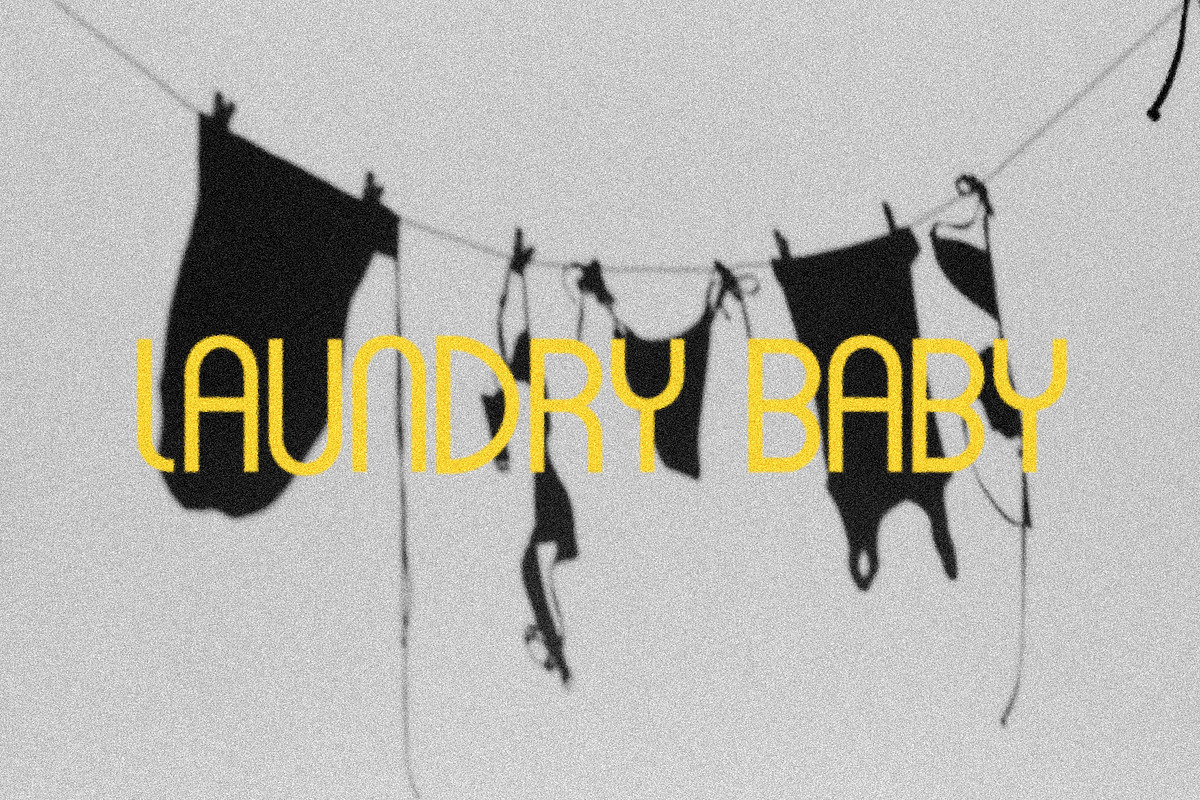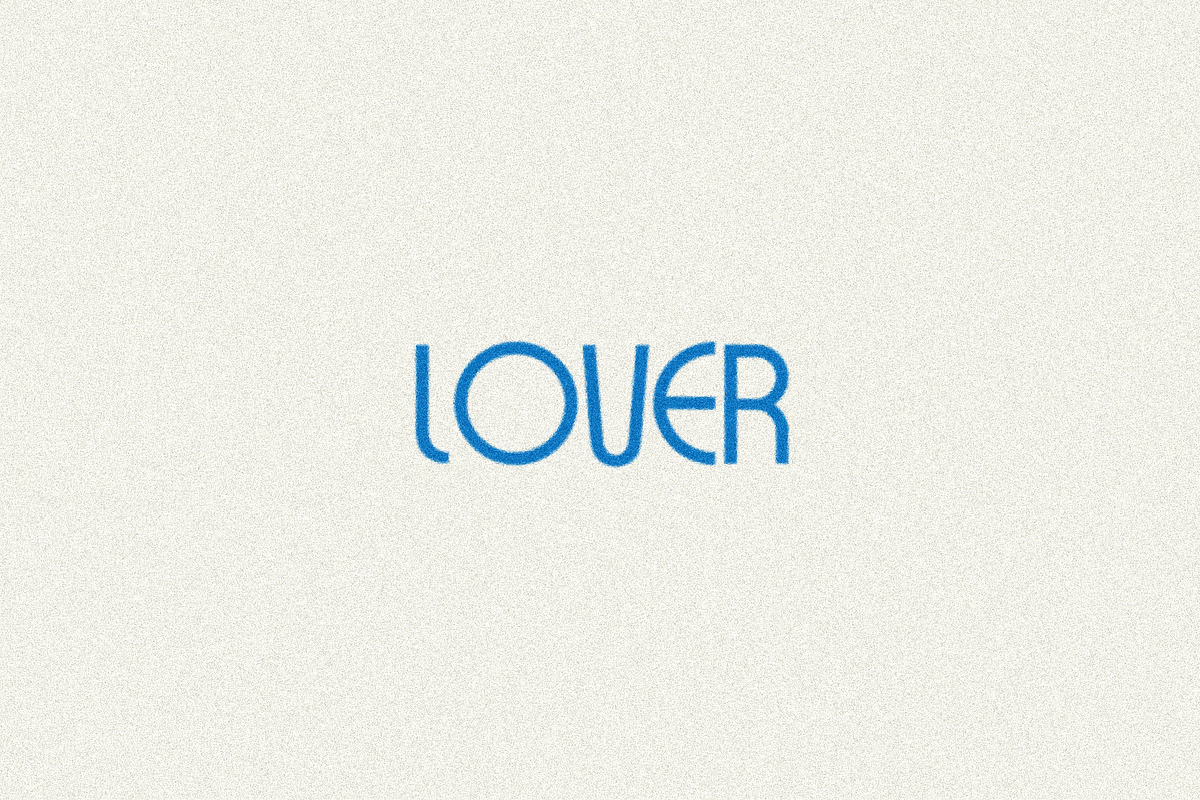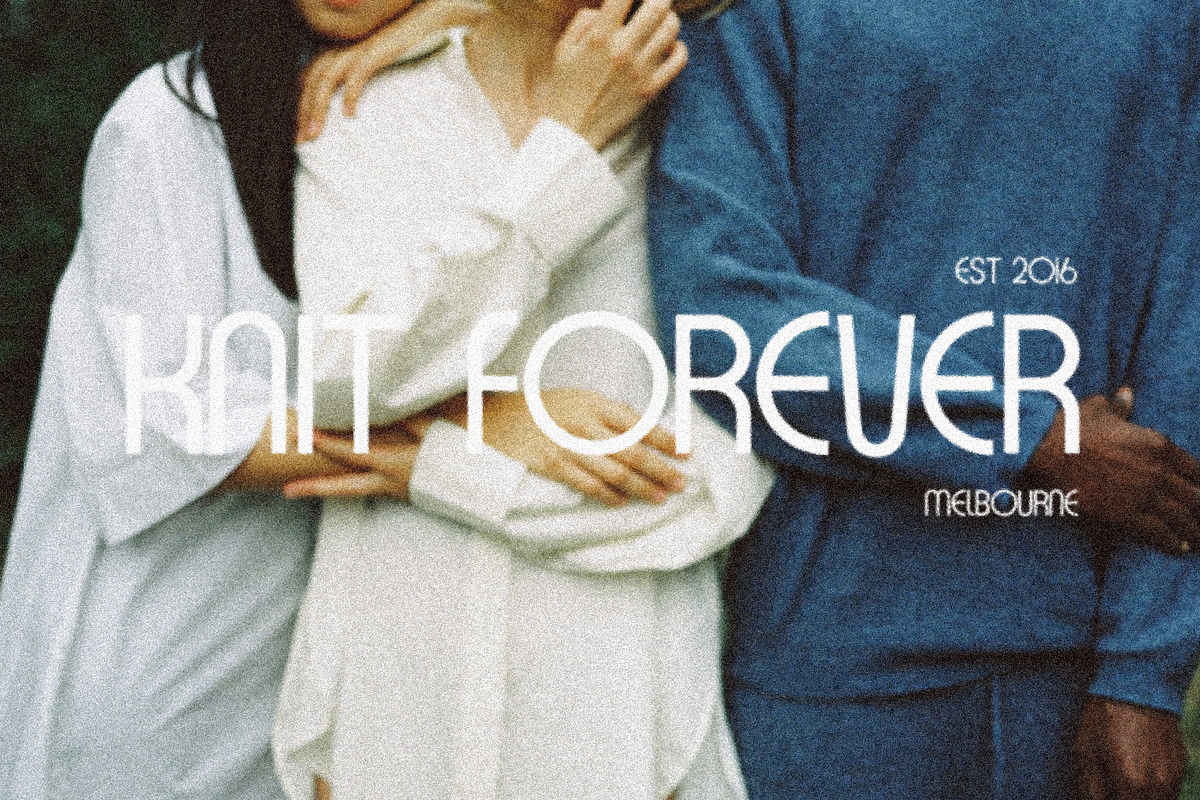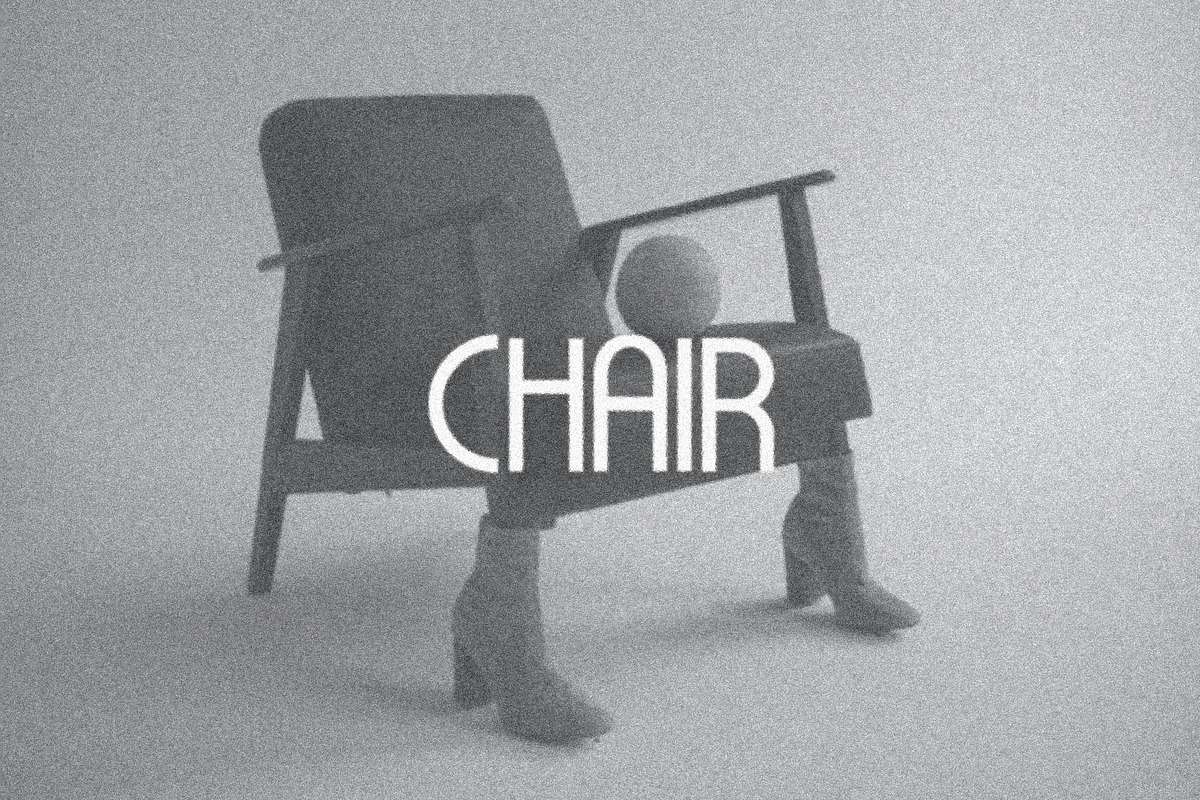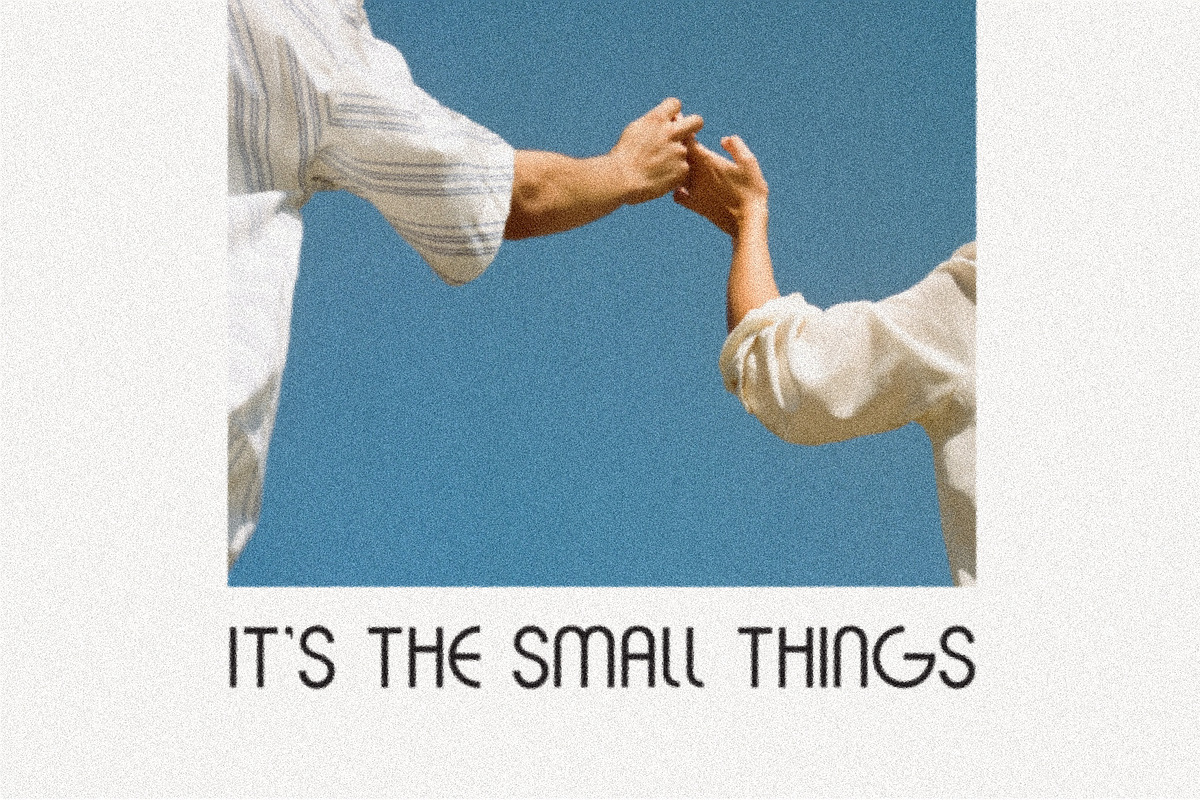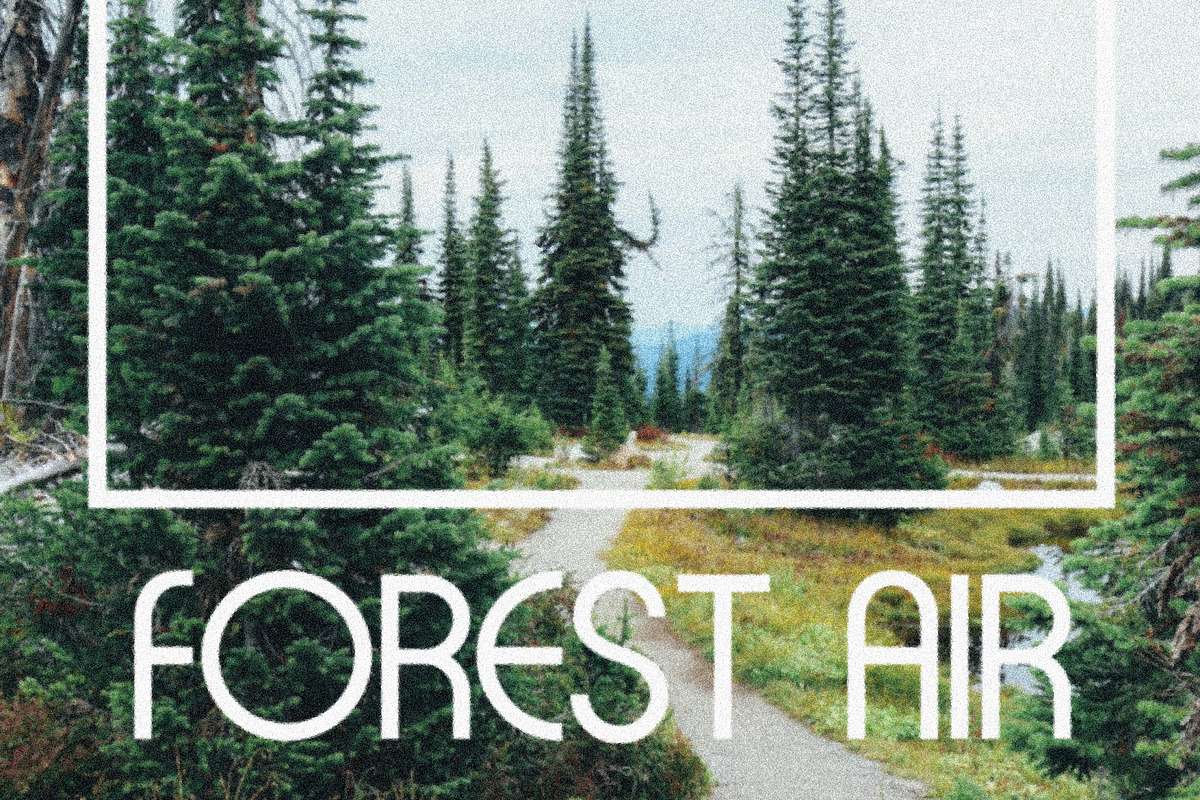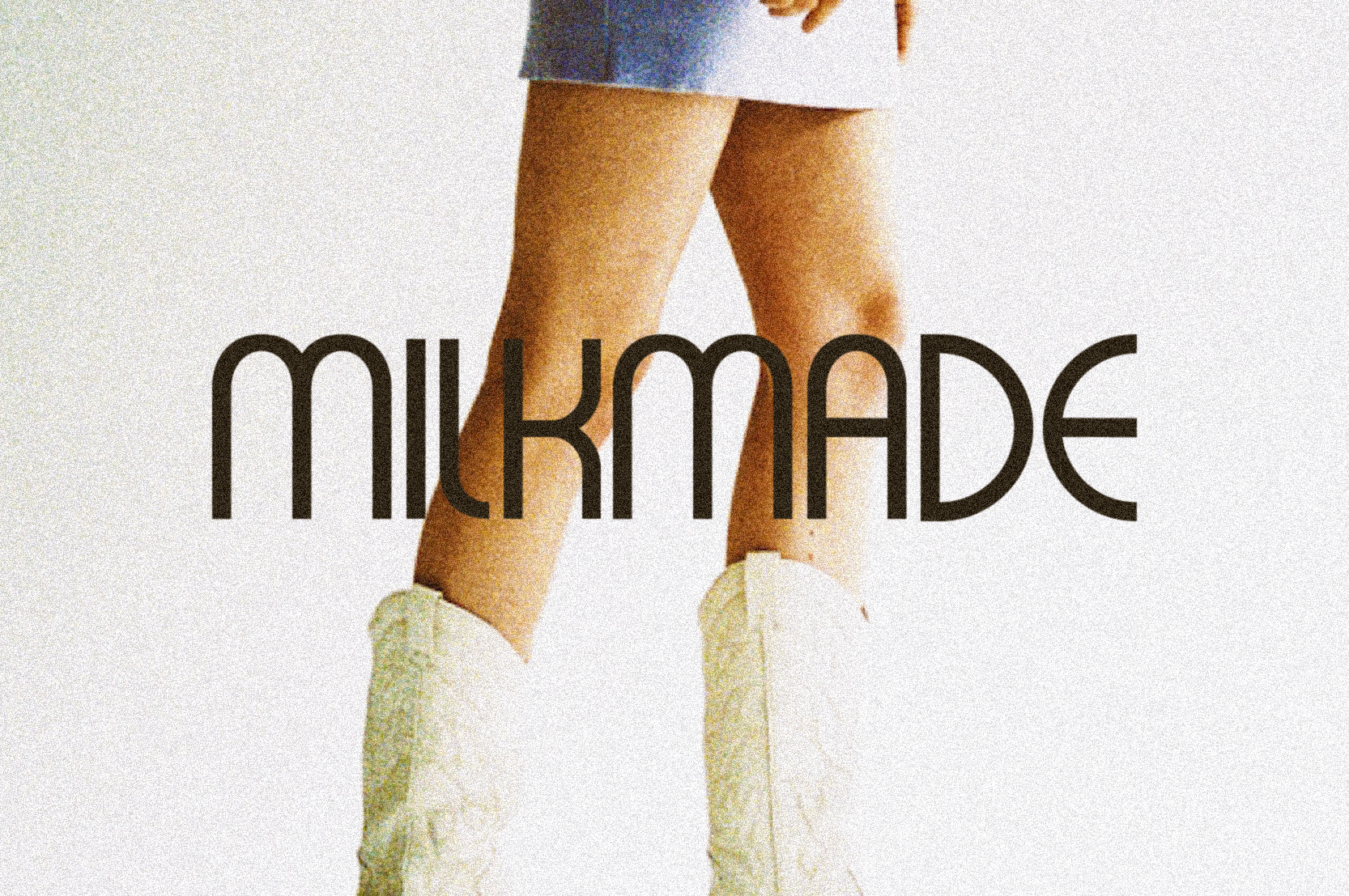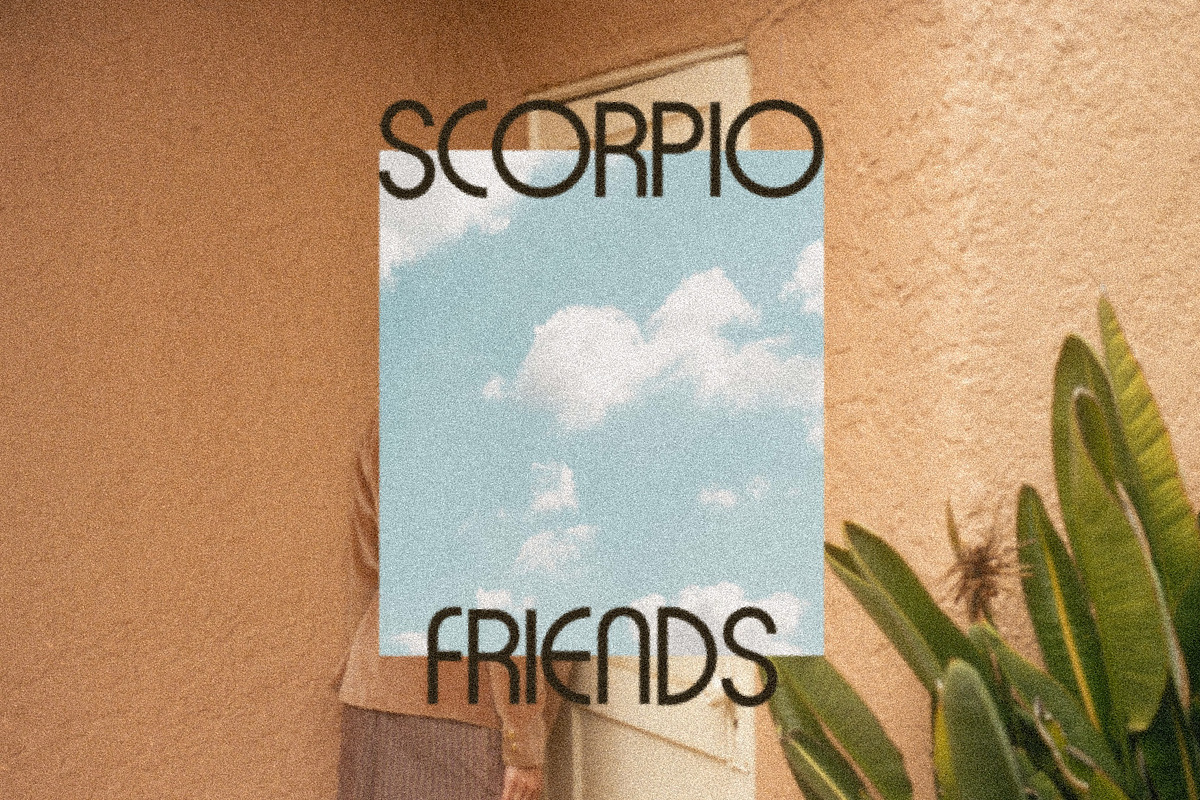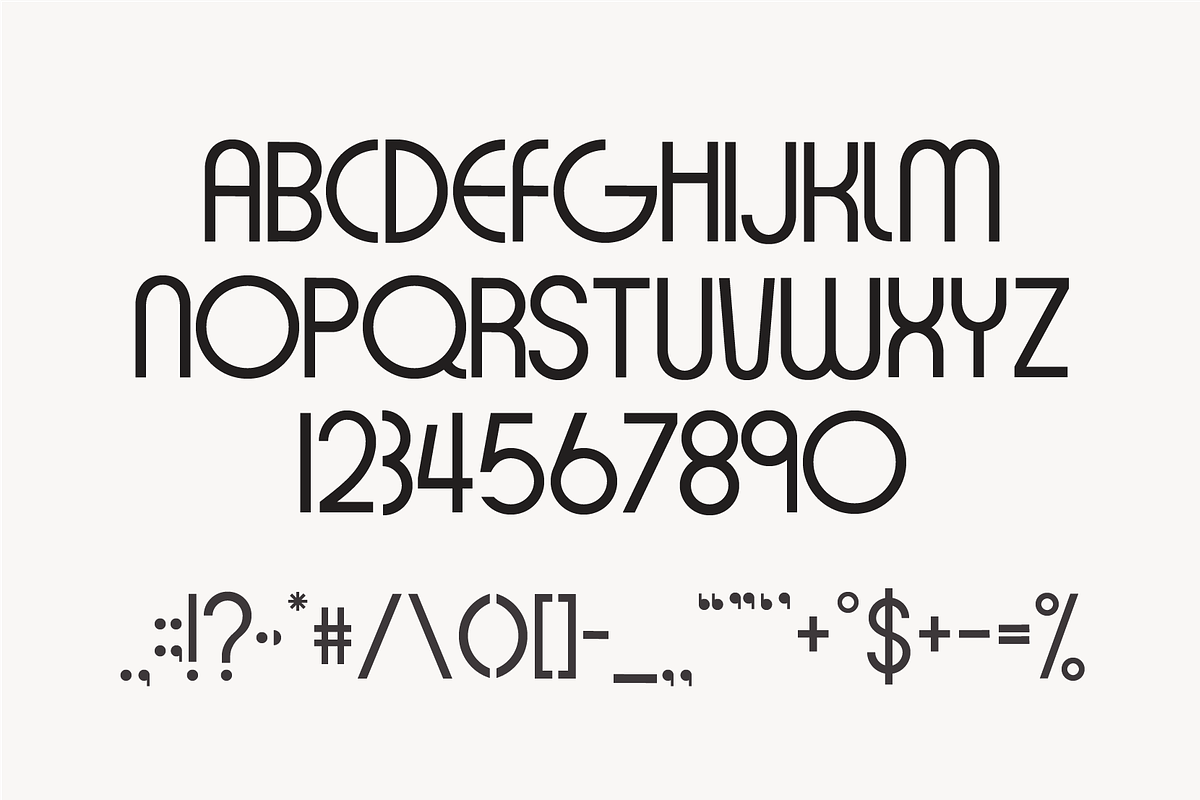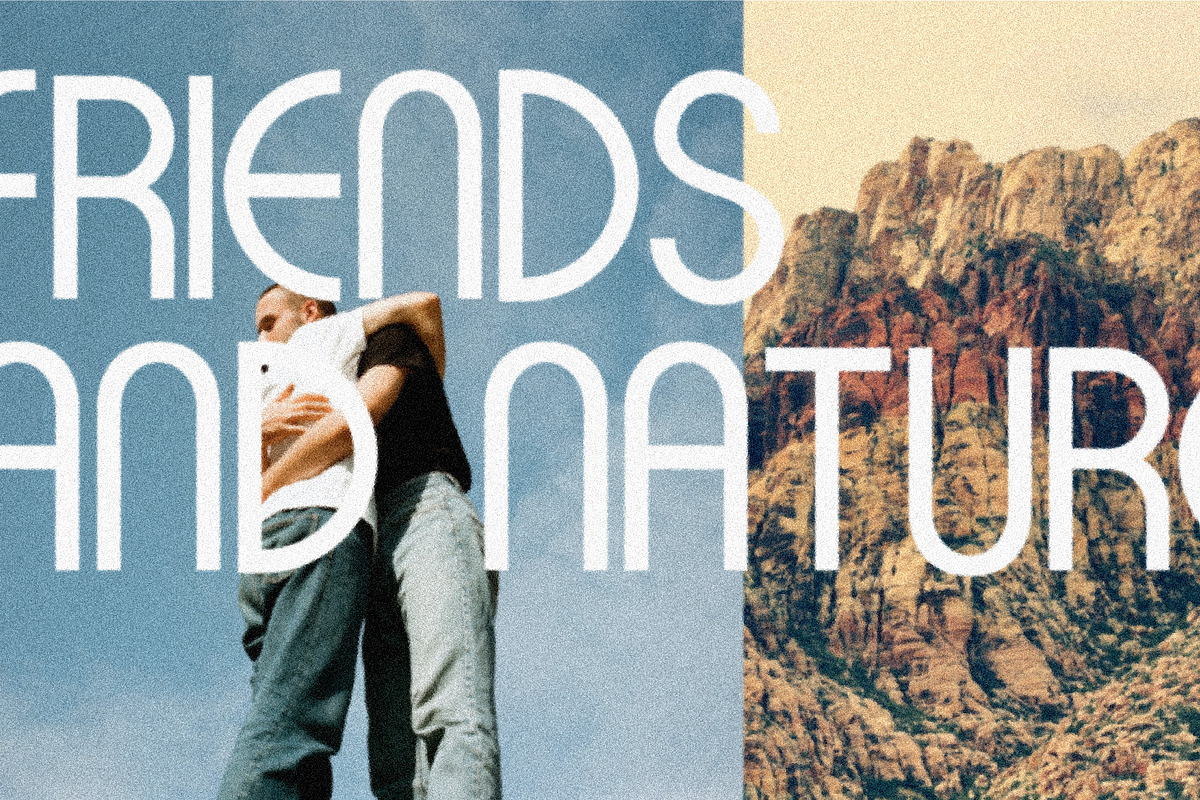
Milk Made - A Retro Font
Milk Made | retro sans-serif display typeface
⋒ perfect for ⋒
- retro brands
- young brands
- gen z branding
- logos
- social media
- posters